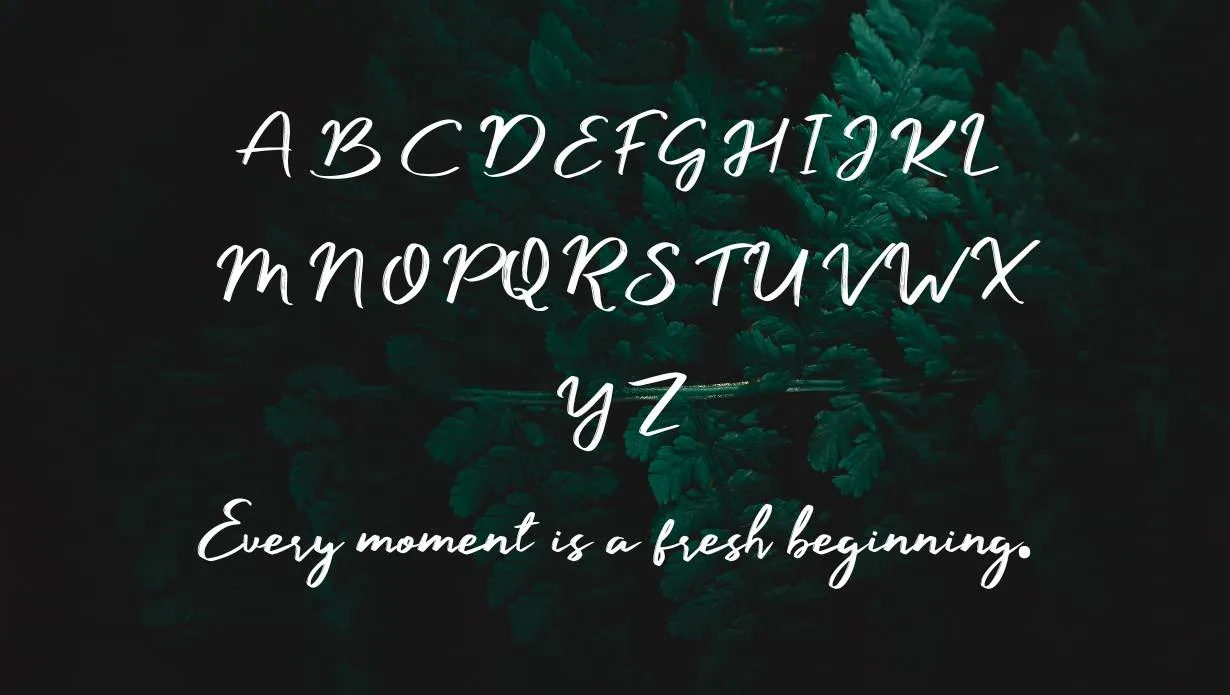
Manyland Font is a script style a sleek and strong typeface with all caps, it makes a solid base for creating unique designs. These designs are unique and beautiful. There are over 100 stylized alternatives, allowing for unlimited customization and titling possibilities. This font was designed by Craft Supply Co.
| Name | Manyland Font |
| Designer | Craft Supply Co |